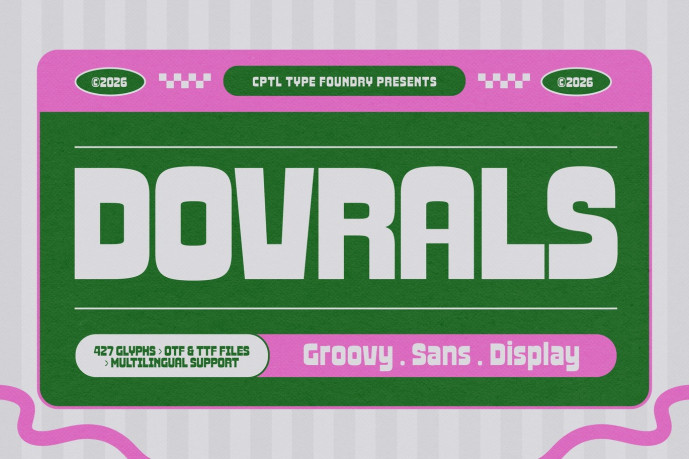
Dovrals Font
Designer: Graphicapital
Dovrals is a groovy sans-serif display typeface with bold, expressive character. Its rounded, solid shapes create a playful retro vibe while maintaining a modern, confident presence—perfect for headlines, logos, posters, and standout branding.
Ideal for branding, posters, headlines, packaging, album art, game visuals, and promotional designs. It adds personality to any creative project and helps your message stand out effortlessly.